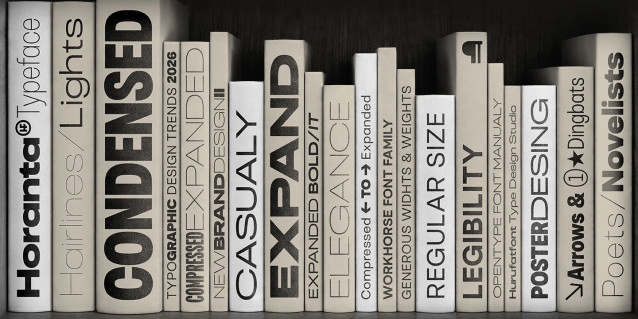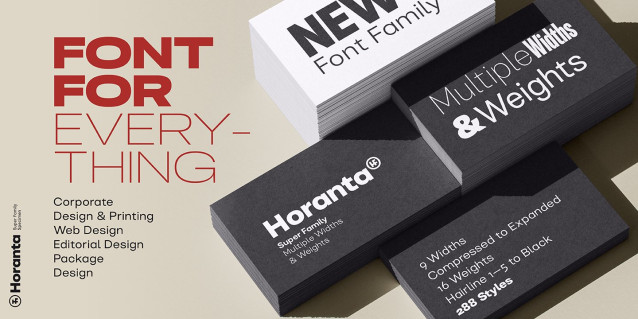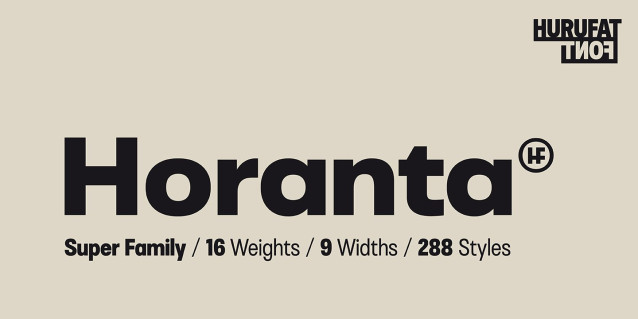
Horanta Normal Font Family
Horanta Normal Font Family takes its name from its etymological roots: a word describing those who gather under the same roof, around the same table—living, sharing, and growing together. Reflecting this heritage, Horanta honors the legacy of the sans-serif tradition while shaping a visual language for the future. With an expansive architecture, it offers 9 widths and 16 weights, totaling 288 styles. Each width variant redefines form and balance, while each weight shifts the tonality of the message. Five distinct hairline weights transform typography into a space for exploration. Precise kerning tables ensure a seamless flow, while custom ligatures and alternate character sets allow every design to find its unique voice. Horanta goes beyond mere readability to curate rhythm, texture, and emotion—maintaining its structural integrity across both digital screens and print. True to its name, it brings diverse characters together around a single “table,” uniting every letter and word into a cohesive whole. Perfectly suited for editorial design, brand identity, digital interfaces, packaging, and motion graphics, Horanta delivers clarity, consistency, and character across every medium